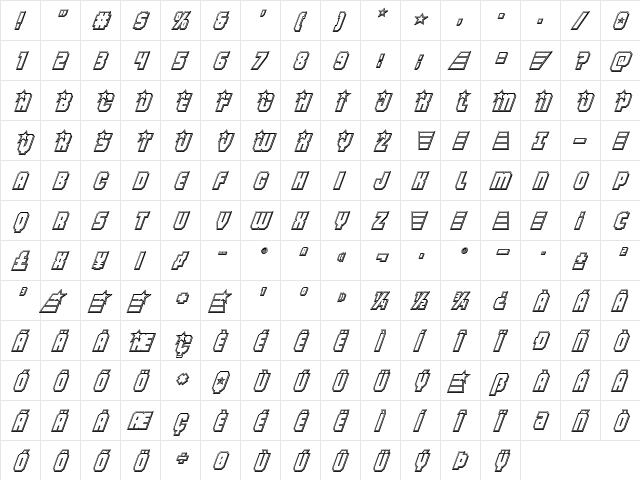
Army Rangers Engraved Italic Italic
Design Context for Army Rangers Engraved Italic Typeface
Army Rangers Engraved Italic draws on military and industrial lettering traditions, with forms that communicate strength and precision. Its italic angle brings a sense of urgency and motion to the letterforms.
A strong choice for security brands, outdoor gear, and high-stakes visual communication.
Pro Tip: Try Army Rangers Engraved Italic in all-caps for the most authentic military signage feel. It pairs well with stark, minimal layouts and muted colour palettes.